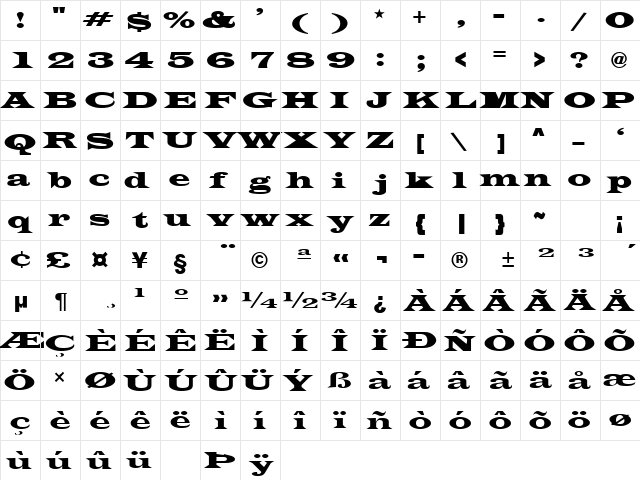
TransverseSSK Regular
Design Context for TransverseSSK Typeface
TransverseSSK offers clean, dependable letterforms without strong stylistic allegiance, making it a practical choice for designers who need flexibility.